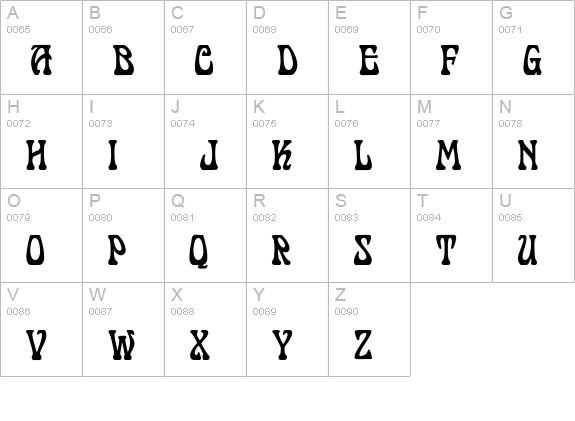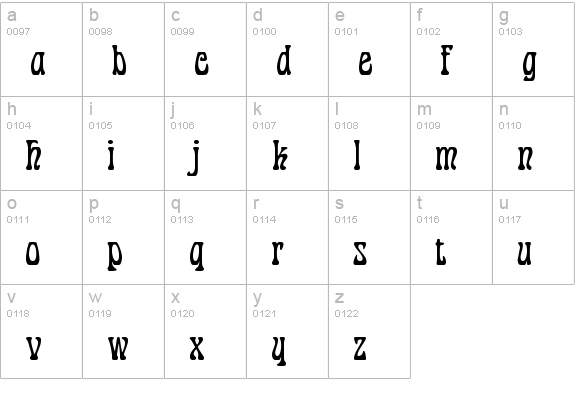
Cordeballet font is a stunning and sophisticated typeface that exudes elegance and charm. With its unique design elements and graceful curves, this font is perfect for adding a touch of luxury to your projects. Whether you're creating wedding invitations, branding materials, or elegant packaging, Cordeballet font will surely make a statement. What makes Cordeballet font even more appealing is that it is completely free to download at FontsMarket.com. This means that you can elevate your designs without breaking the bank. Don't miss out on this opportunity to enhance your projects with the timeless beauty of Cordeballet font. Download it today and let your creativity soar!